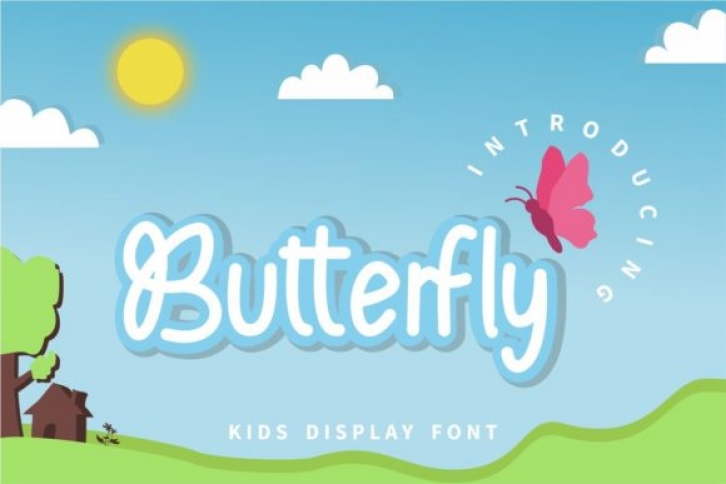
Butterfly is a cute, natural and quirky script font. Its sweet and full of life style makes this font a wonderful choice for brightening up your designs.